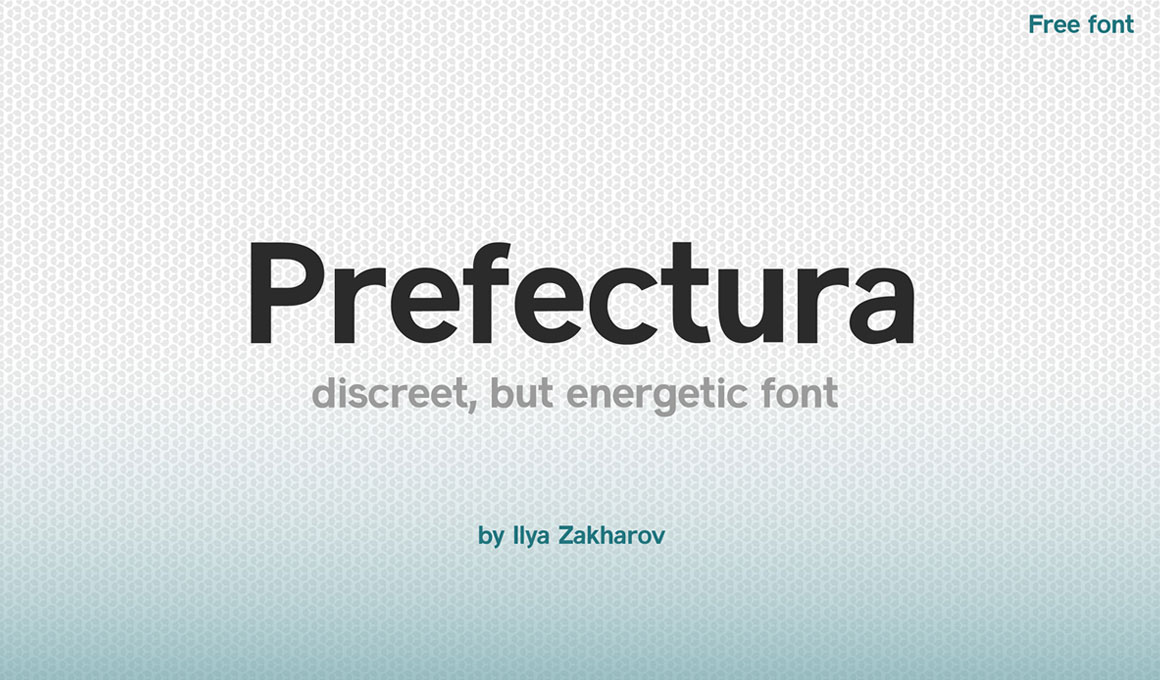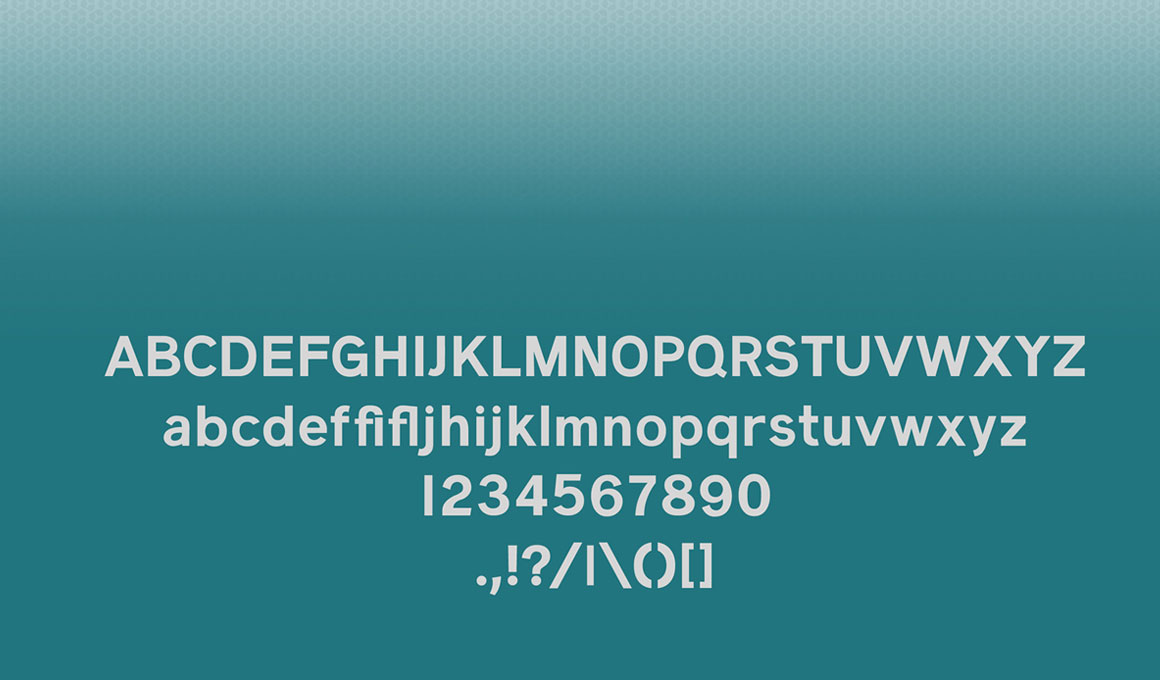
Prefectura Free Sans Serif Font
Prefectura Free Sans Serif Font is a minimal font contains full set of uppercase and lowercase letters, numerals, symbols and ligatures.
Prefectura Font – Sans Serif Font is a minimal font comes from Graphic Designer Ilya Zakharov. It contains full set of uppercase and lowercase letters, numerals, symbols and ligatures.
This font will perfectly suit for text blocks and headlines, badges, labels, quotes, badges, covers, posters, wedding invitations, branding, website, letterheads, nameplate, greeting cards, labels, logos, headlines and other creative arts.